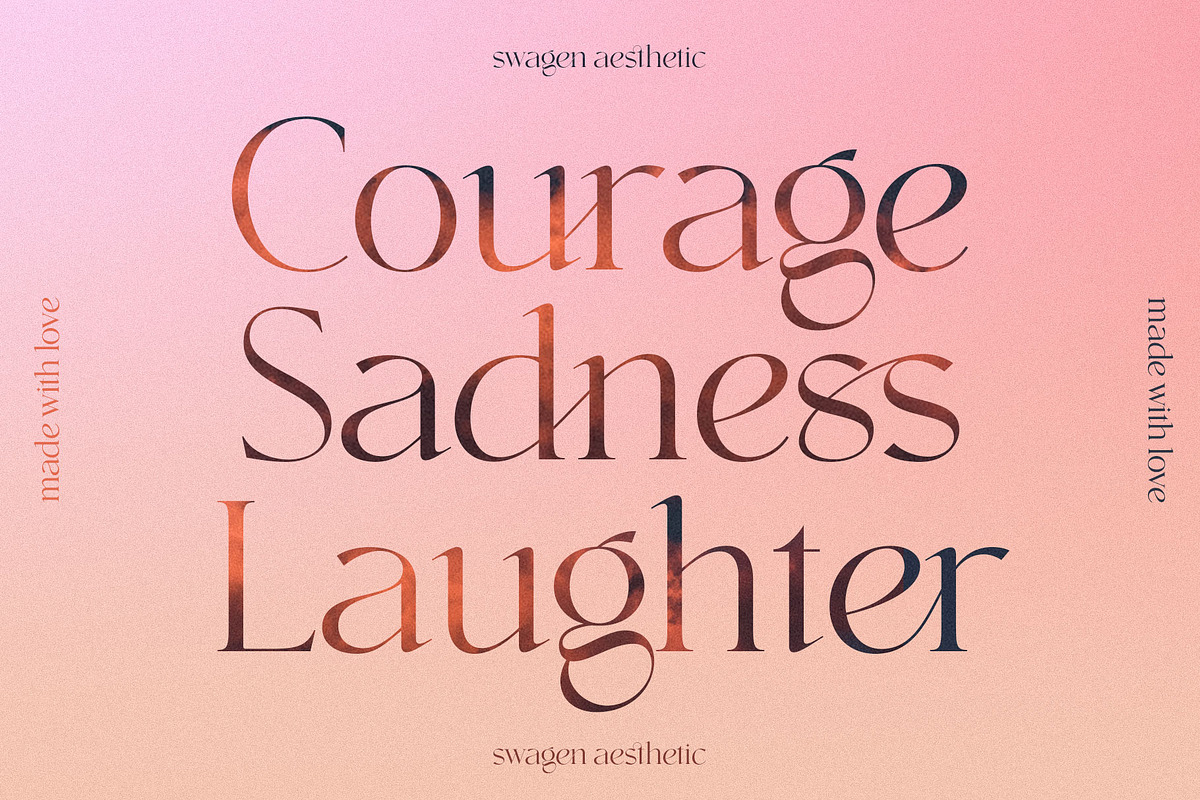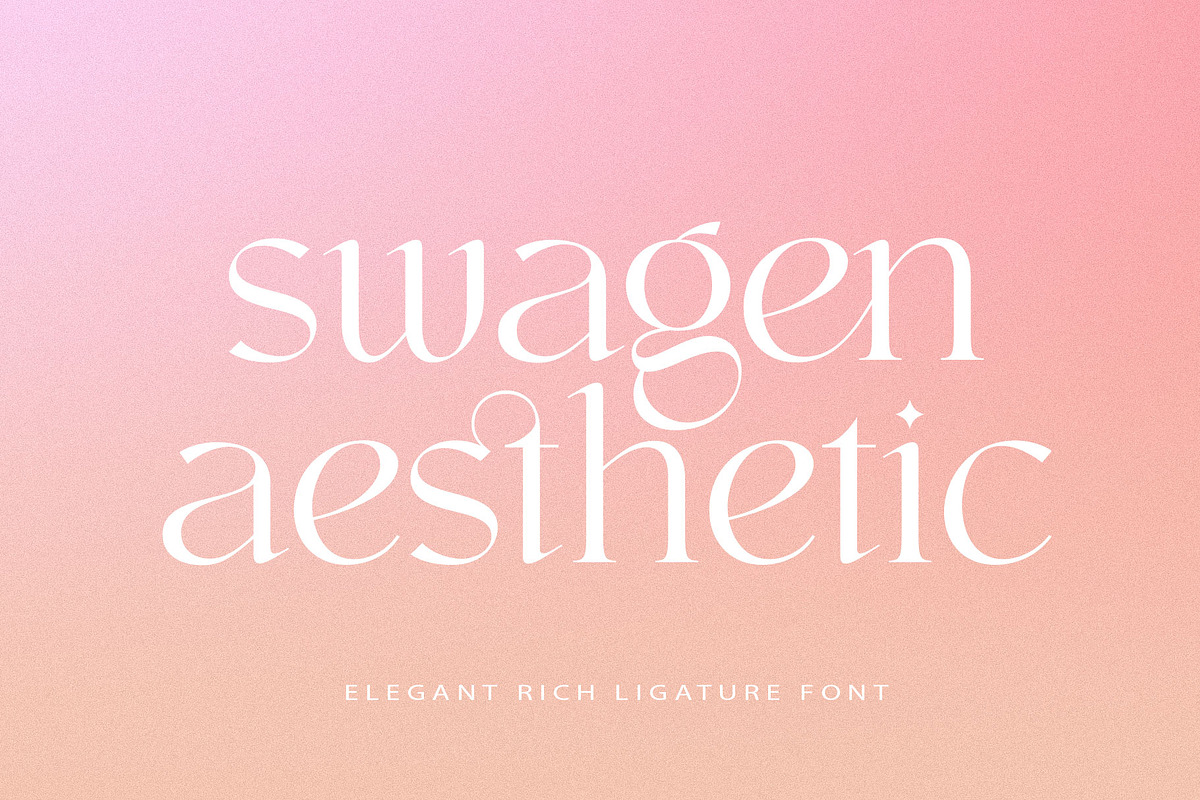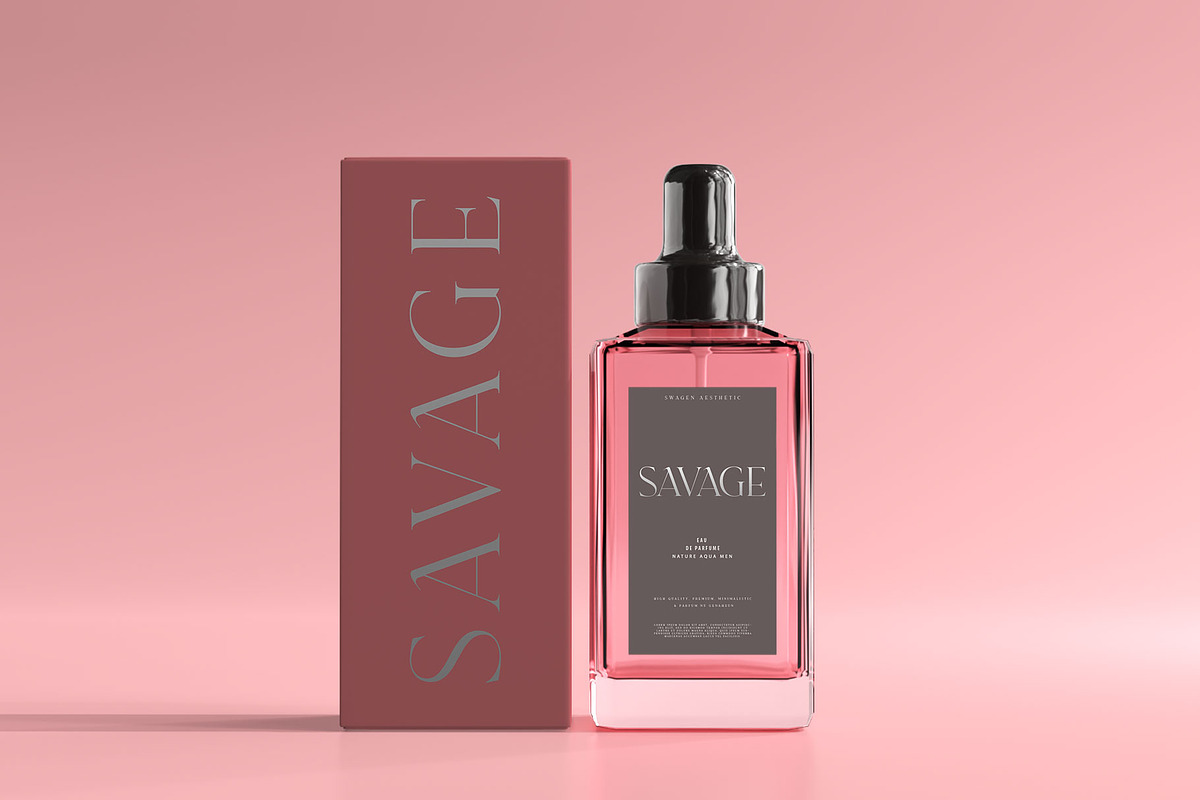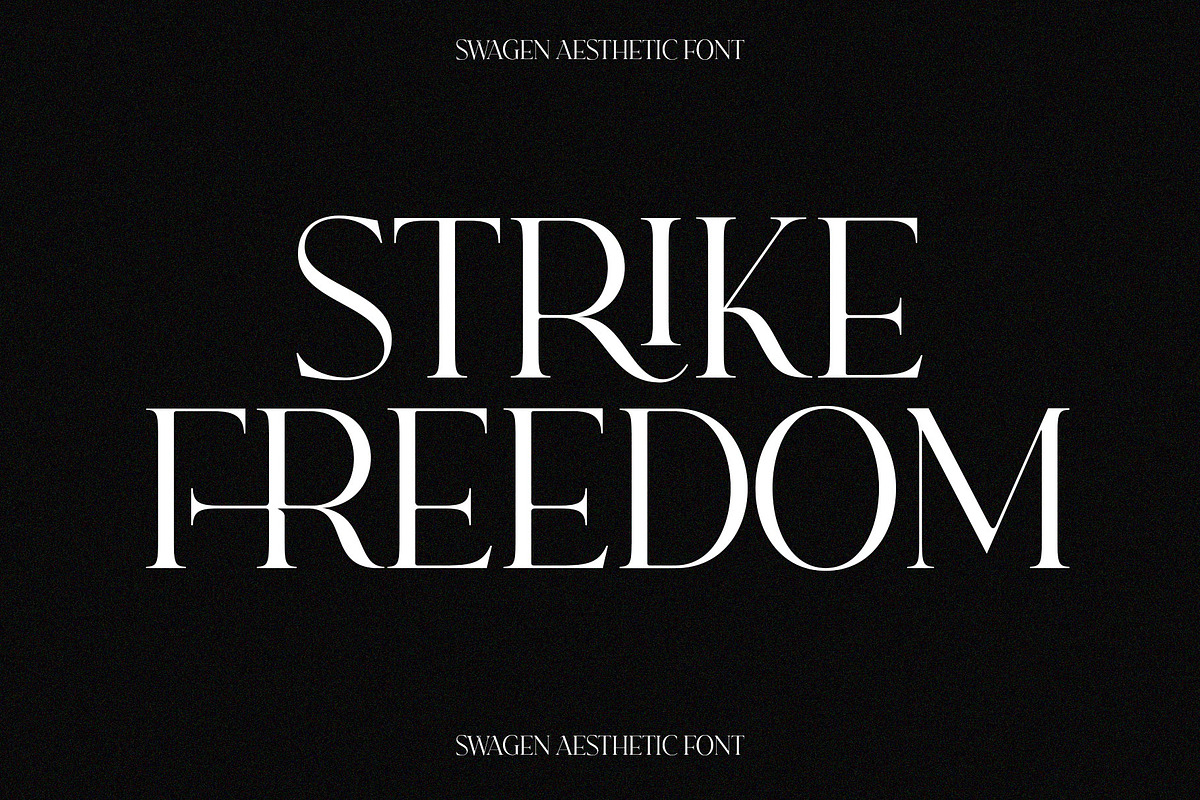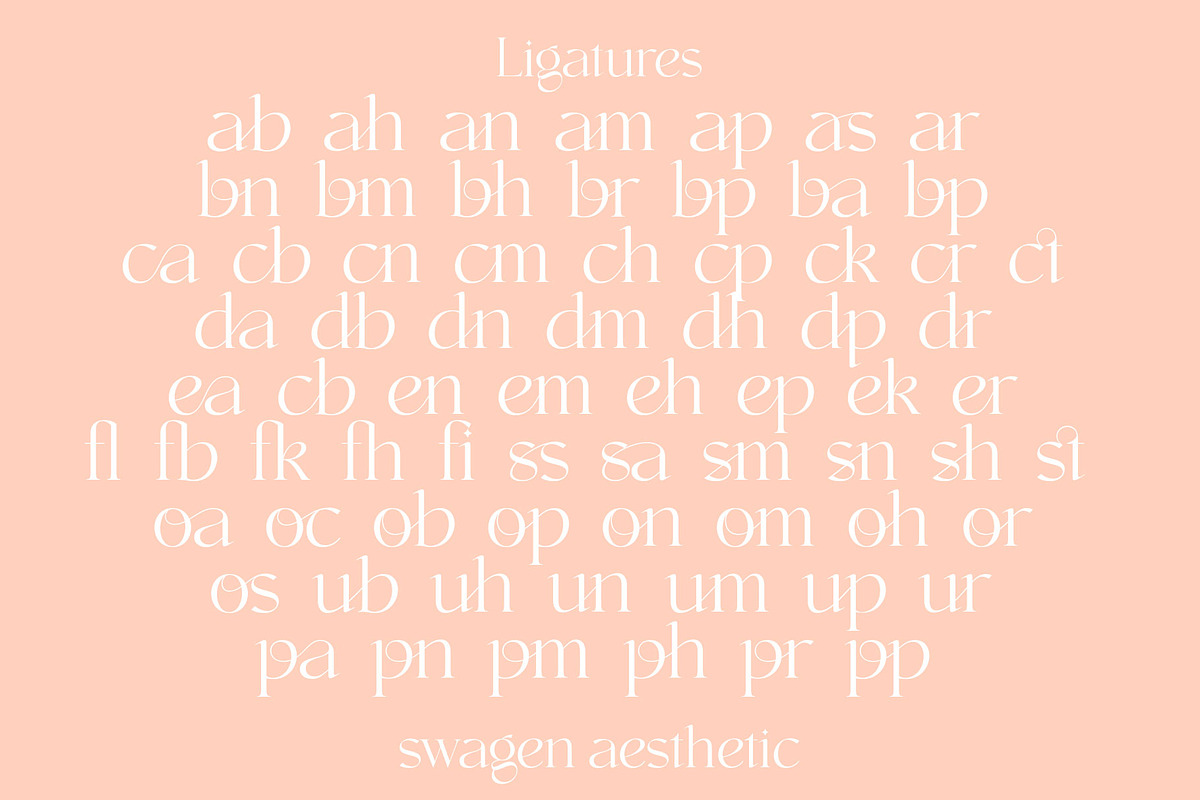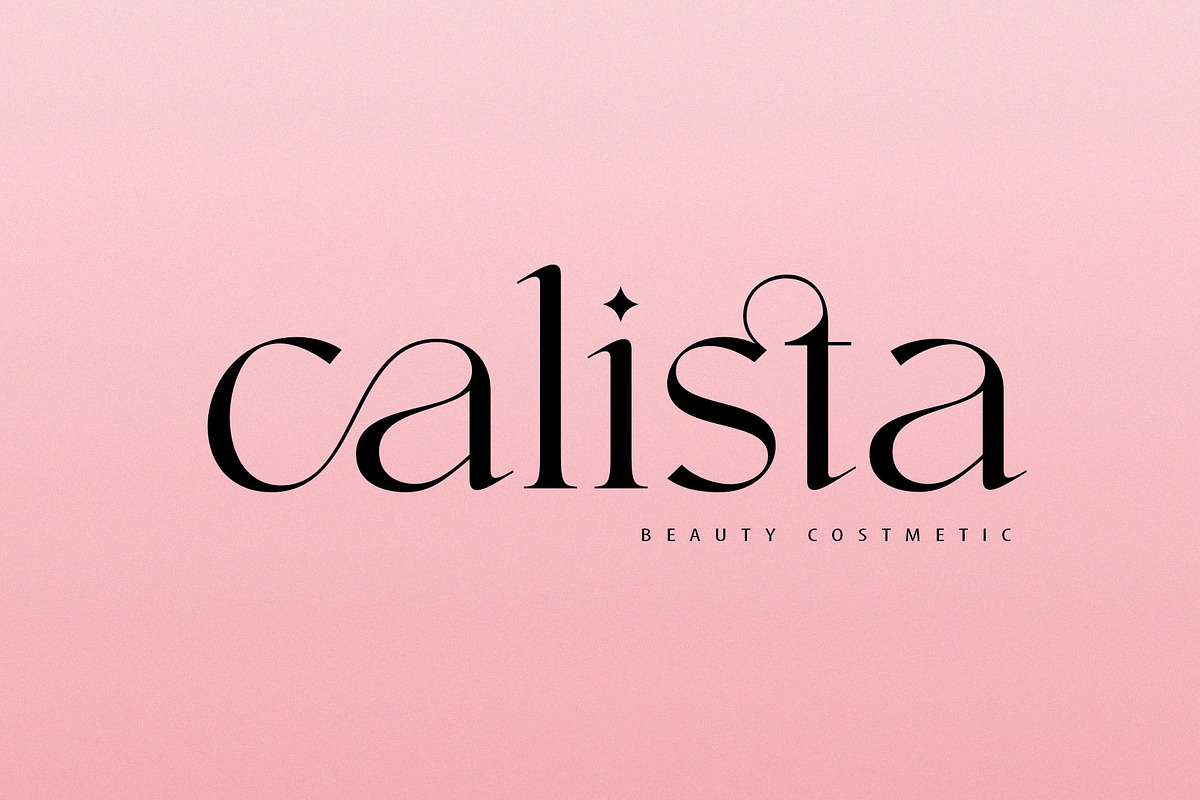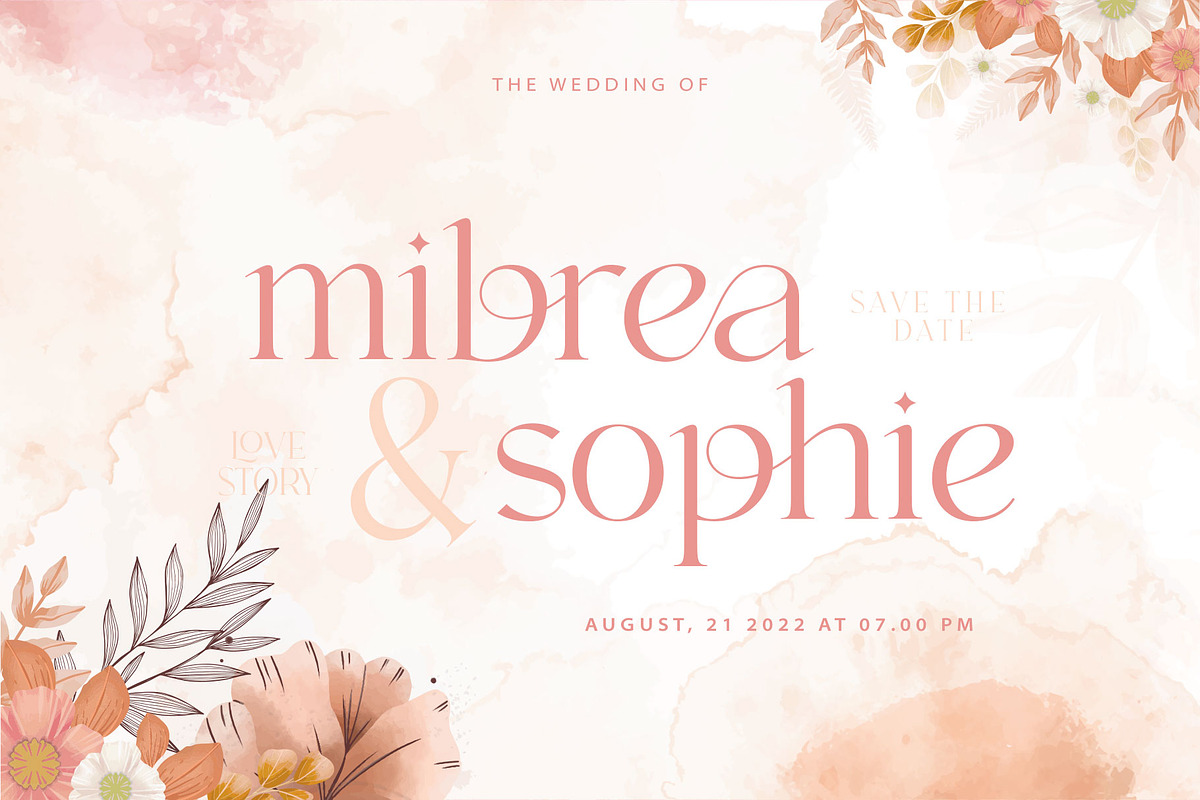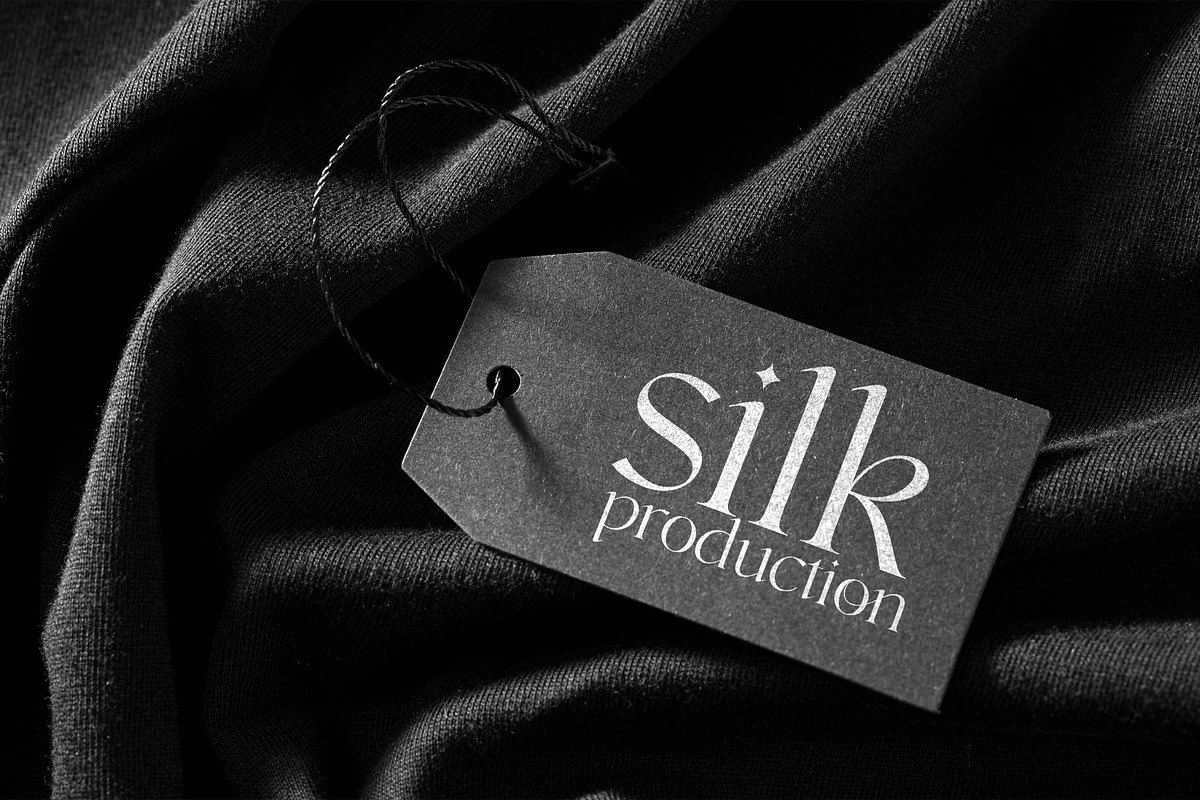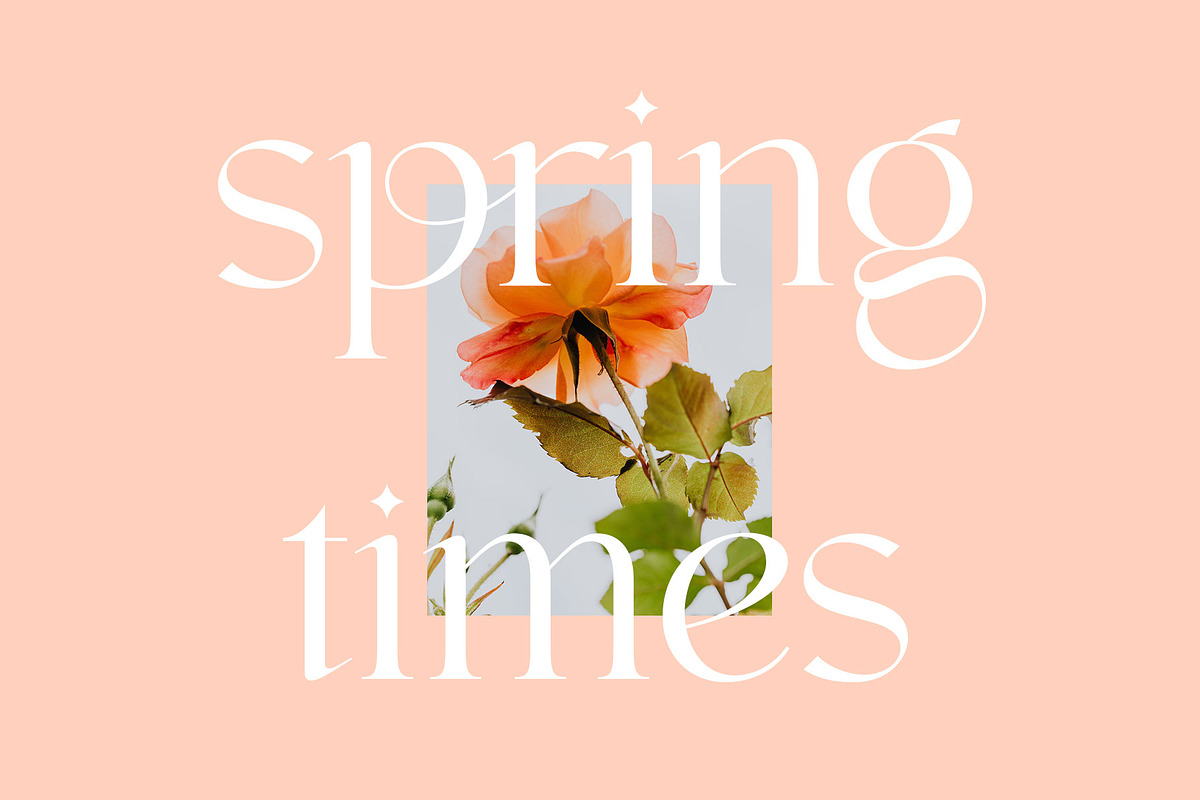
swagen aesthetic
Swagen aesthetic is a luxurious font with a wealth of ligature in it. with a very detailed neatness. This font is perfect for your work to look elegant and luxurious.